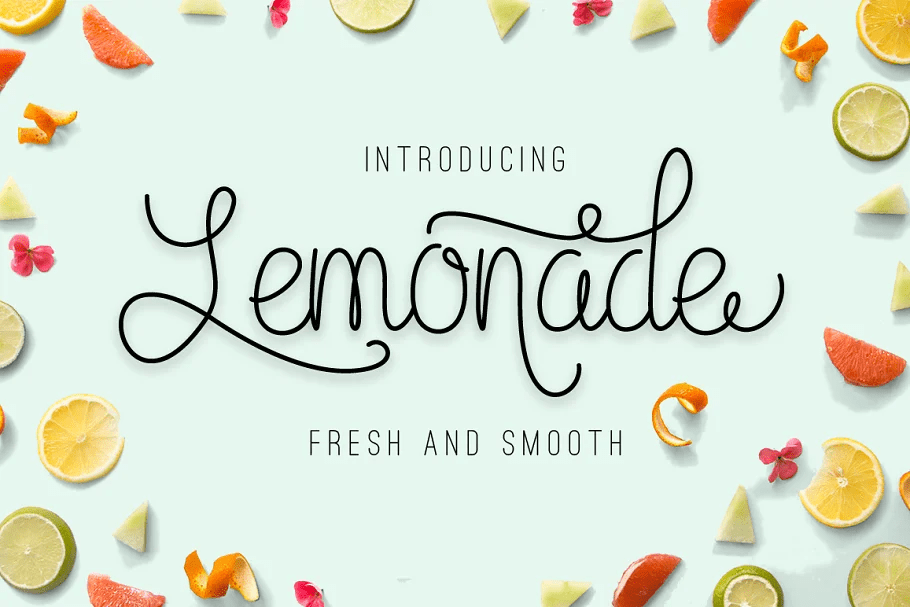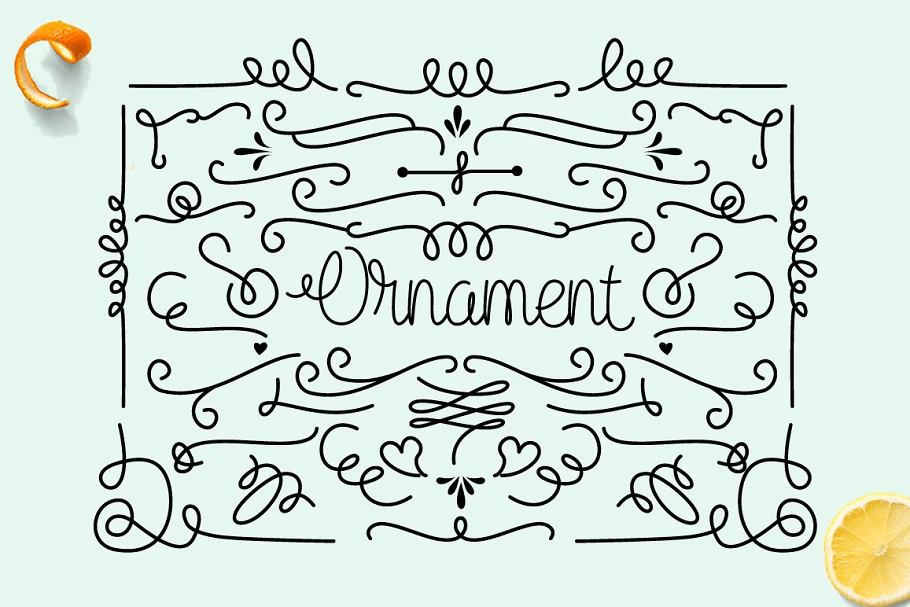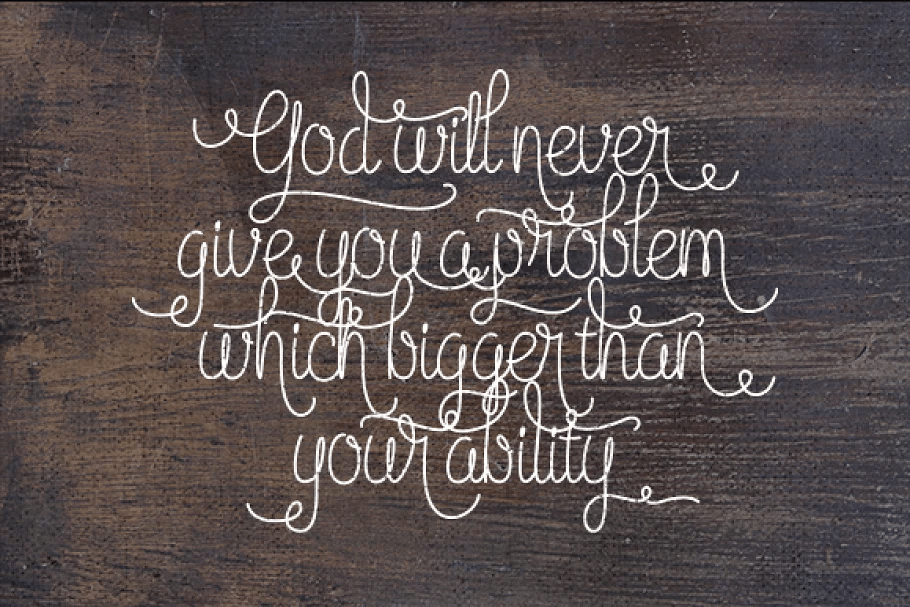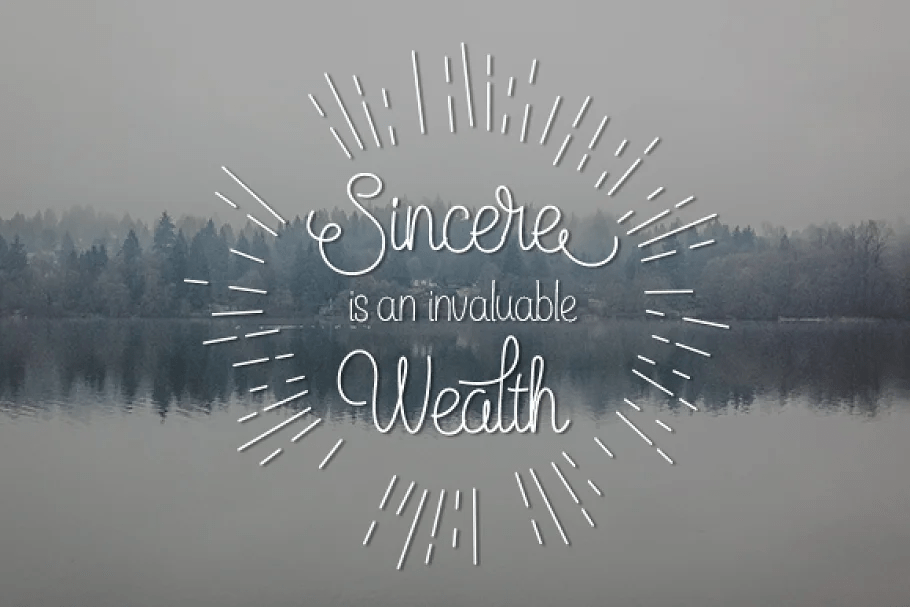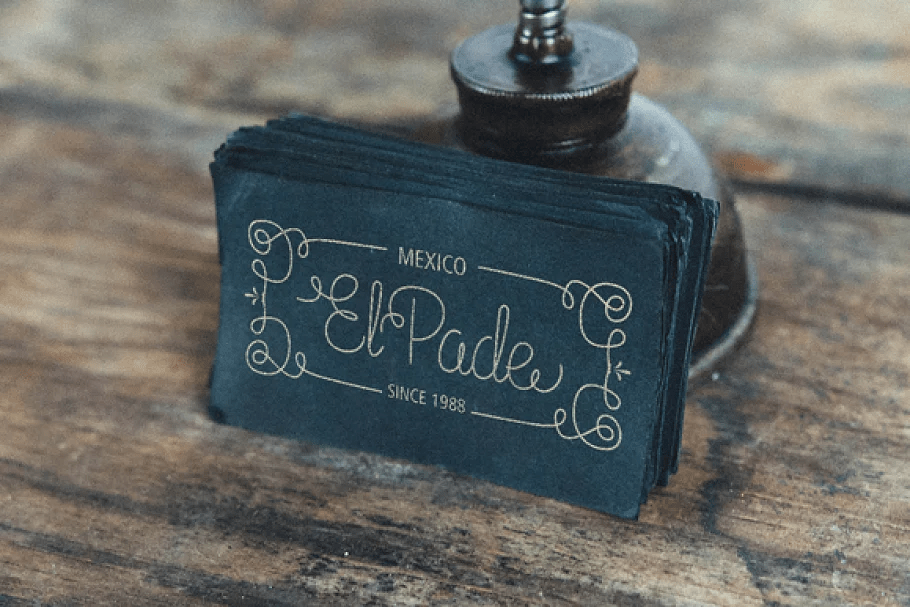
Lemonade
Lemonade is an elegance monoline script with the purpose of finding a balance between calligraphy and natural hand writing. Lemonade has 2 variations regular and script font. It is suitable for wedding invitation, any greeting cards, retro / vintage design style, etc. Mix and match the alternate characters to add an attractive message to your design.